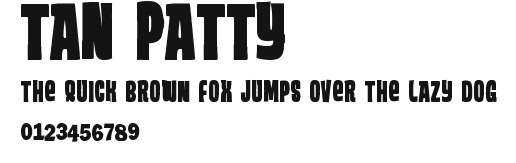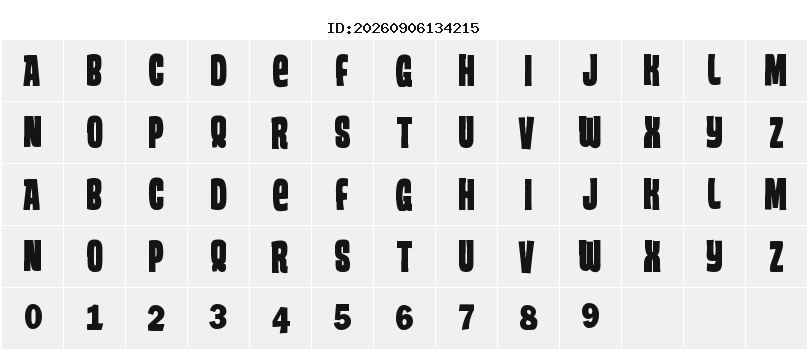
About Tan Patty.ttf
Tan Patty.ttf is a modern, elegant sans-serif font designed for ultimate readability and visual harmony. Perfect for branding, headlines, web design, and print materials.